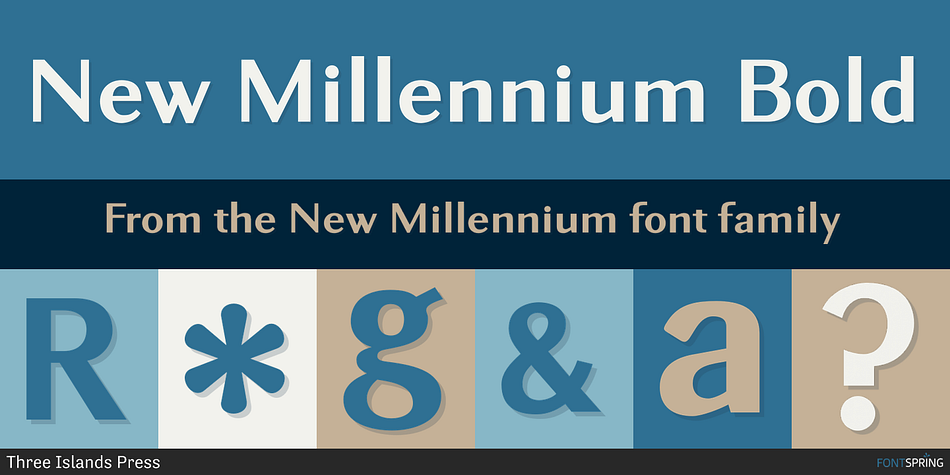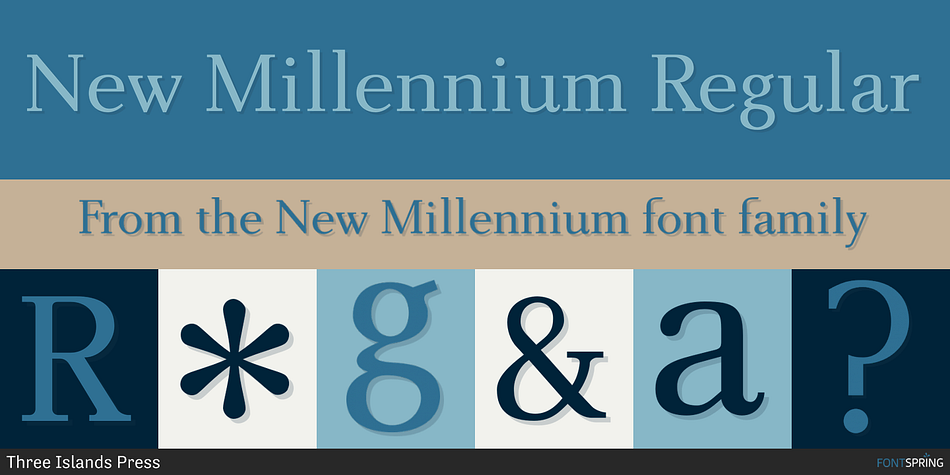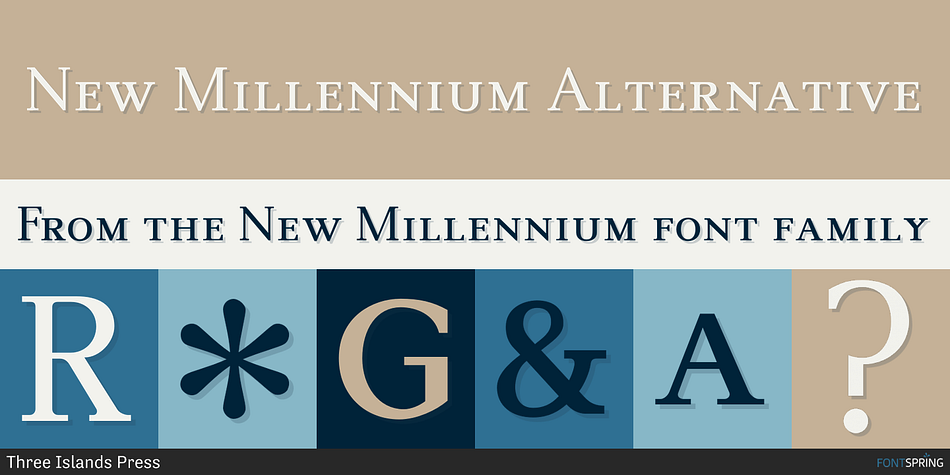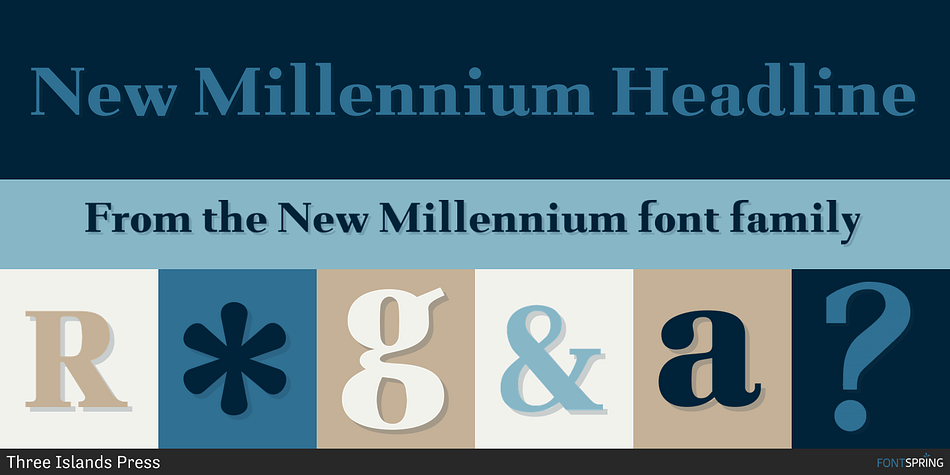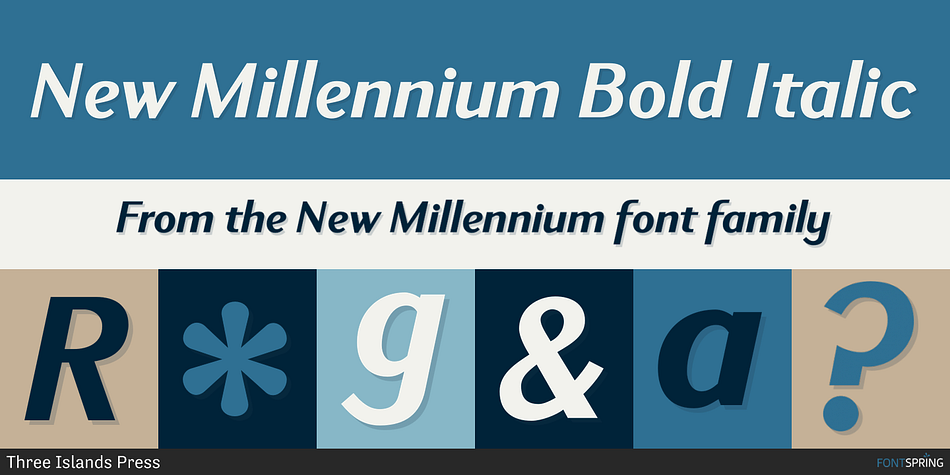
New Millennium is a sans serif, serif and display serif font family. This typeface has five styles and was published by Three Islands Press.
New Millennium is one of three font families that share a common name, a common design philosophy, a common x-height, and basic character shapes. (The others are New Millennium Sans and New Millennium Linear; all work well together.) New Millennium is a serif face of what some might describe as a “modern style.” But although it does has flat serifs, it differs markedly from, say, Bodoni or Didot—especially in the italic. (Note: the bold styles are in fact sans-serif, identical to those of New Millennium Sans.) There’s also a nice, dark Headline style for display text. New Millennium is a distinctive, legible, accessible text face well suited to multiple uses.